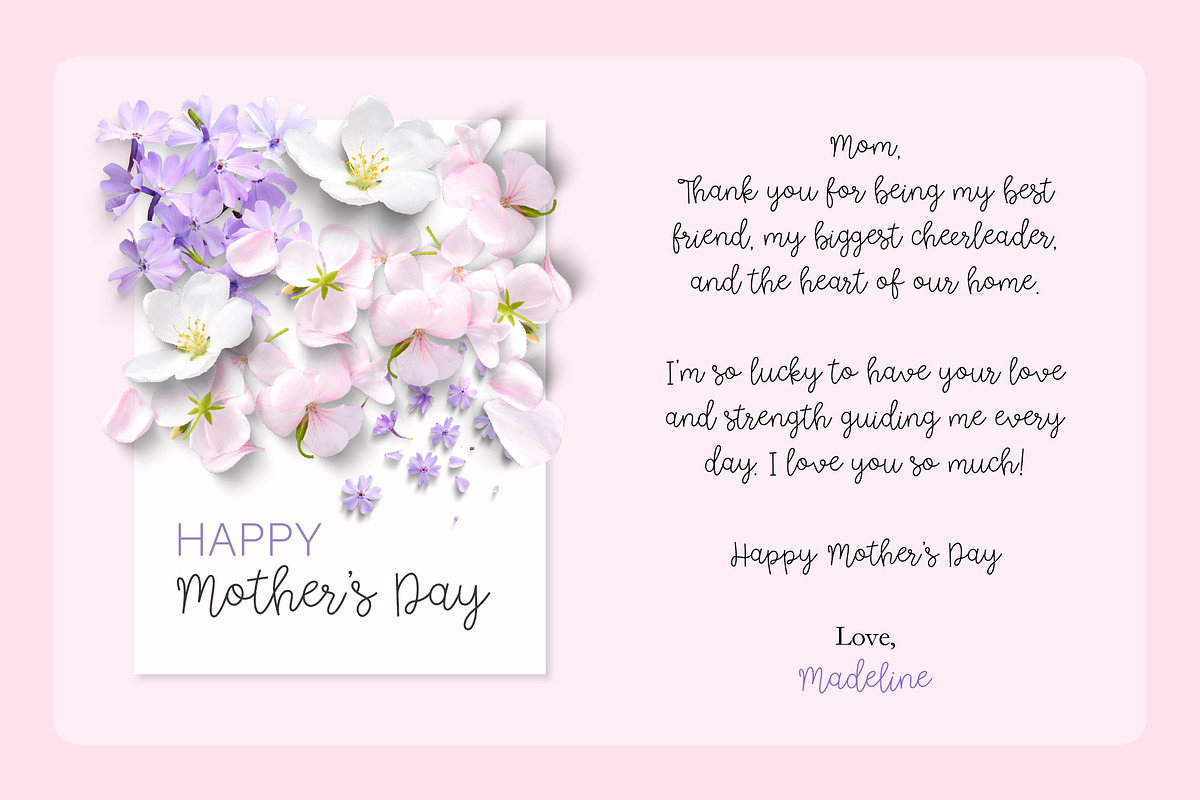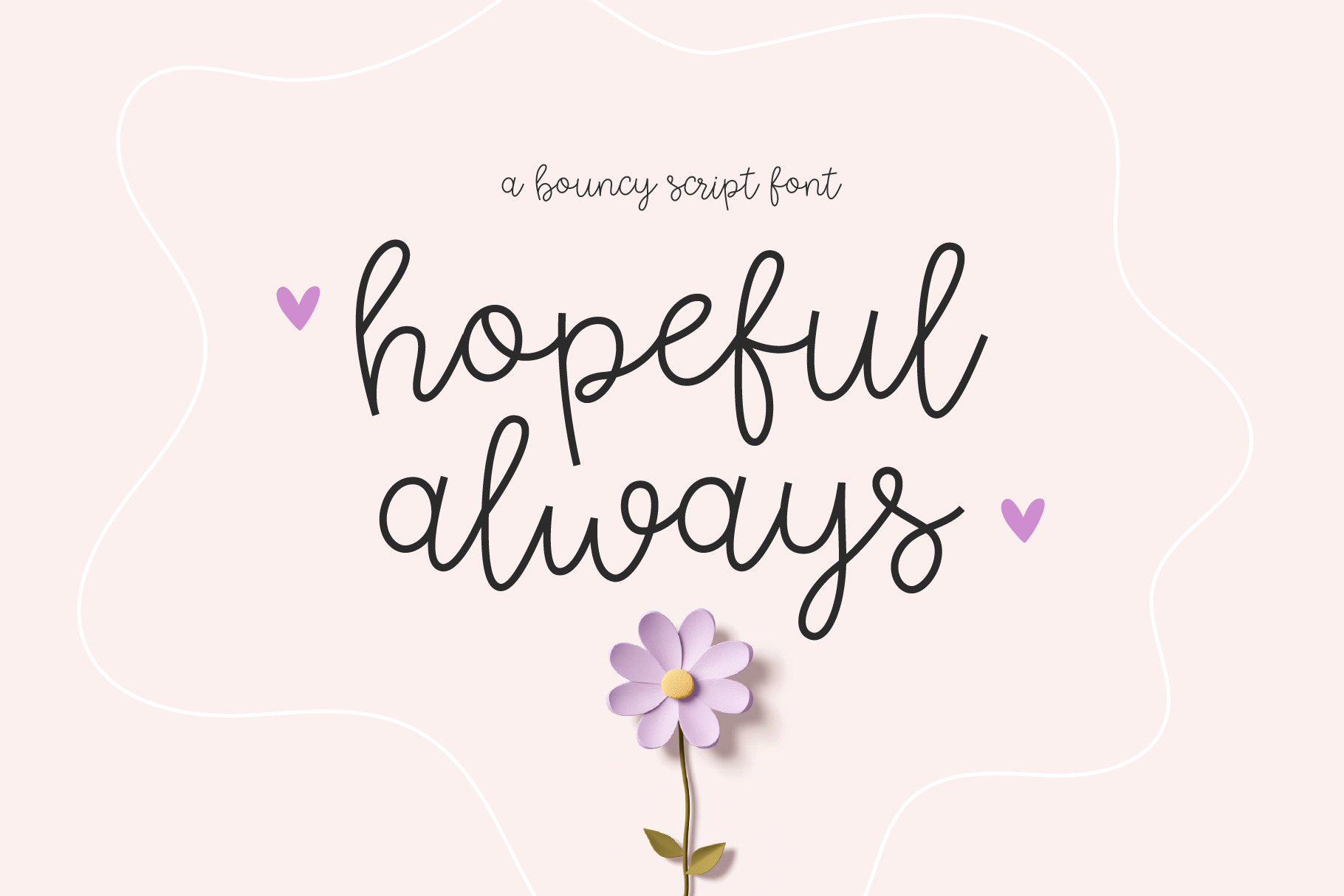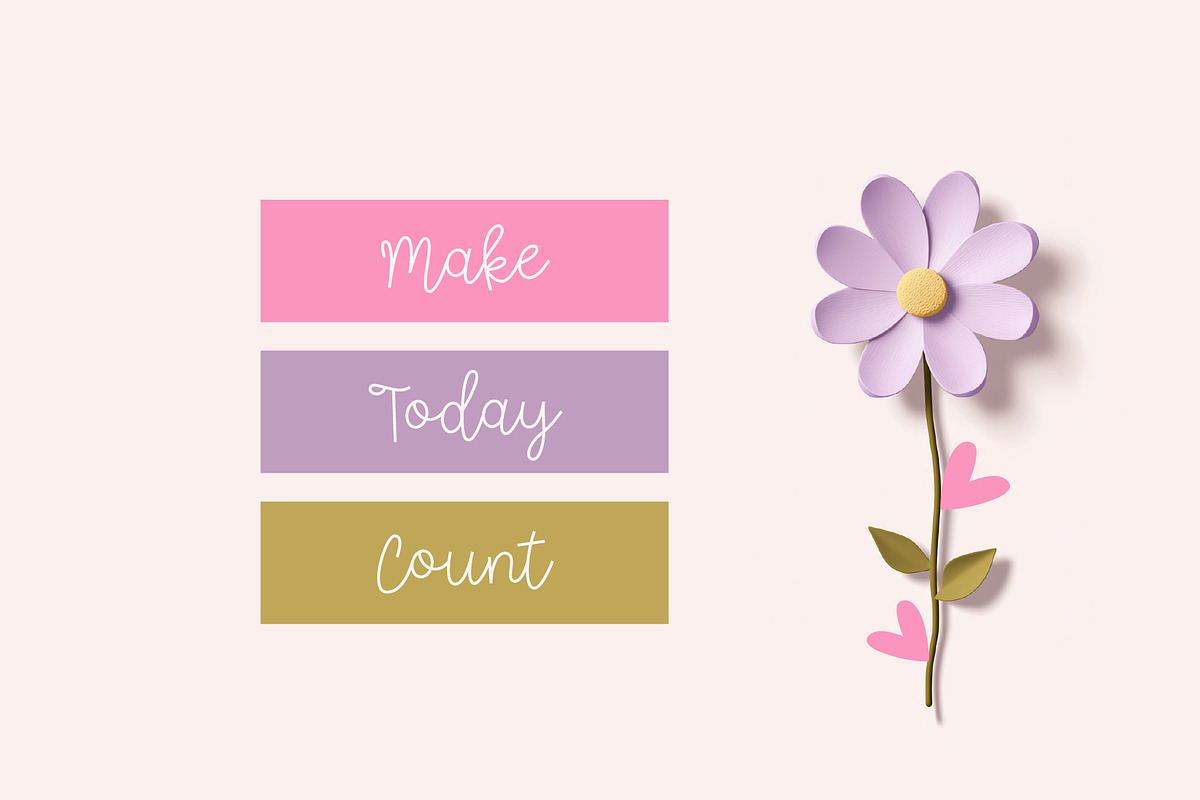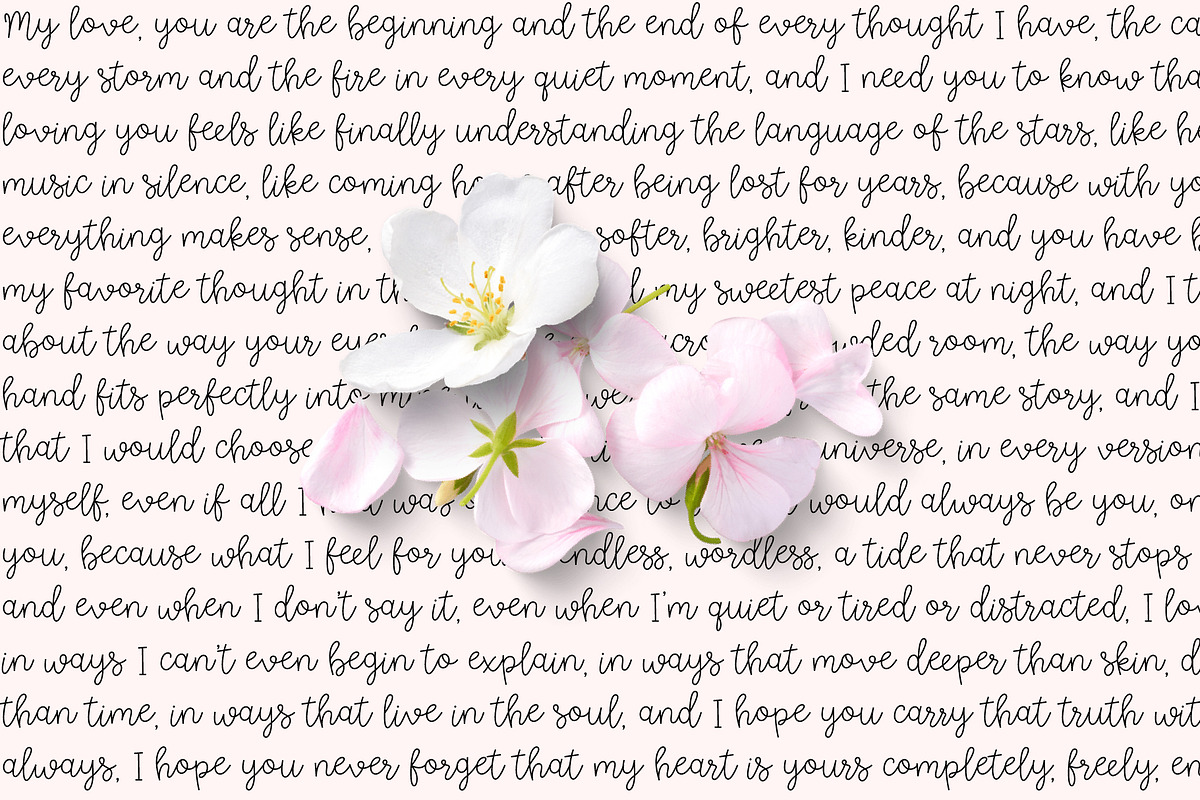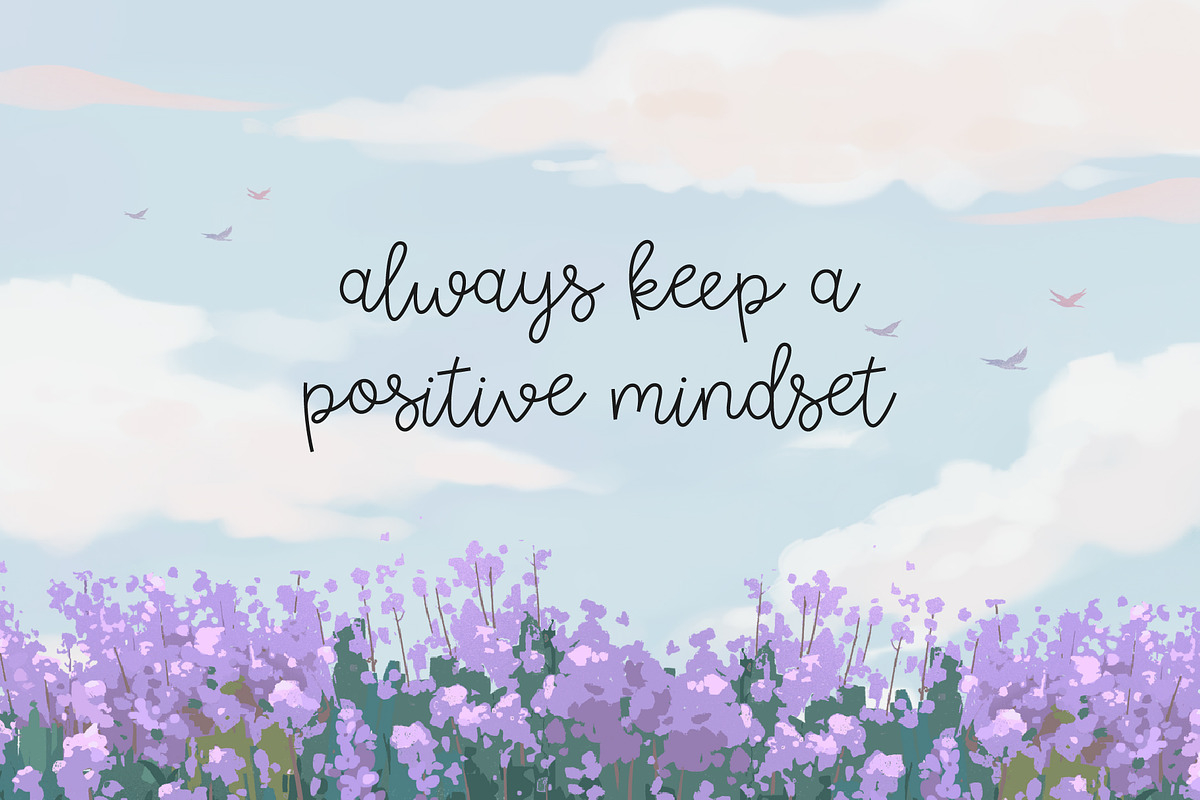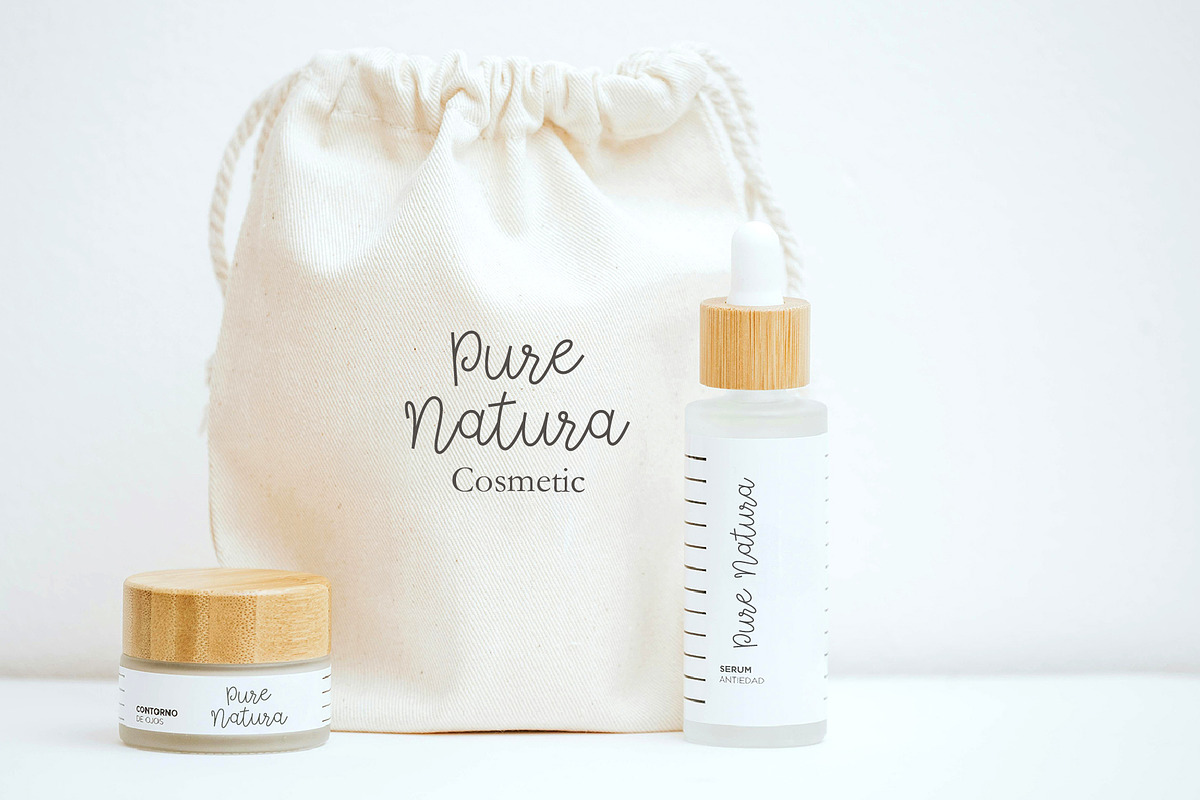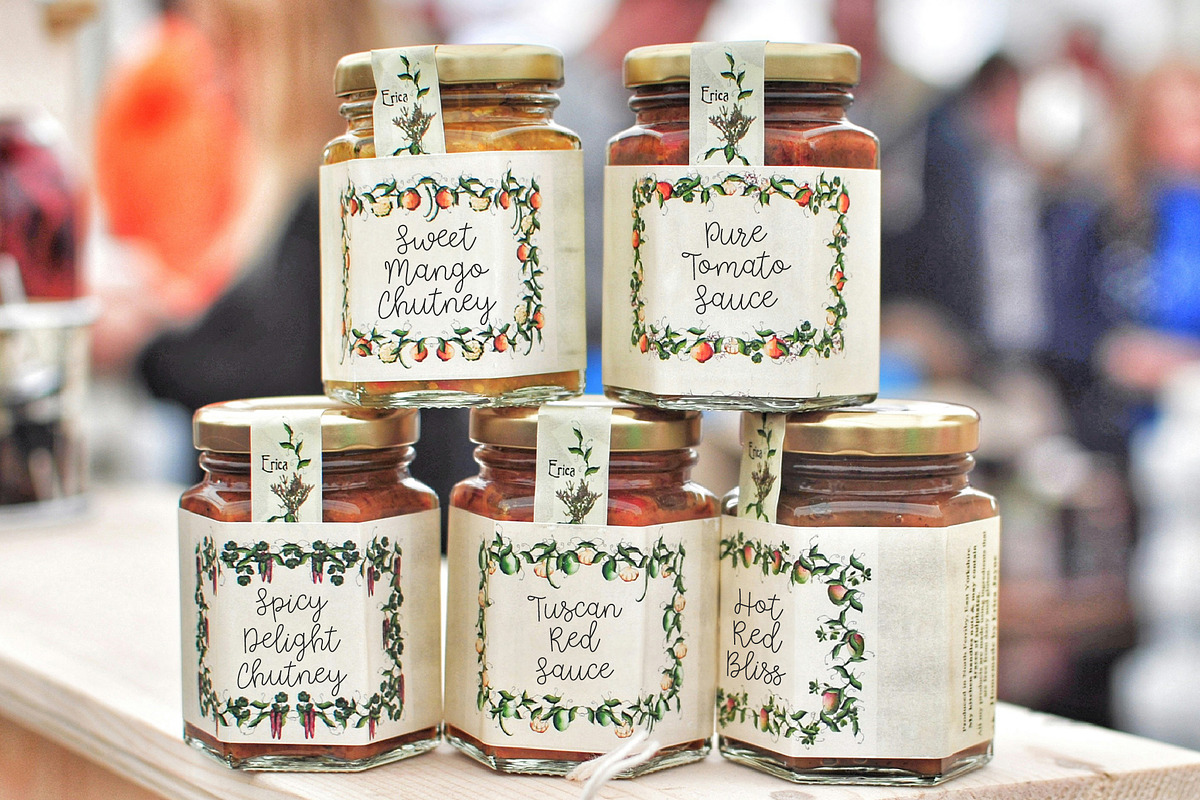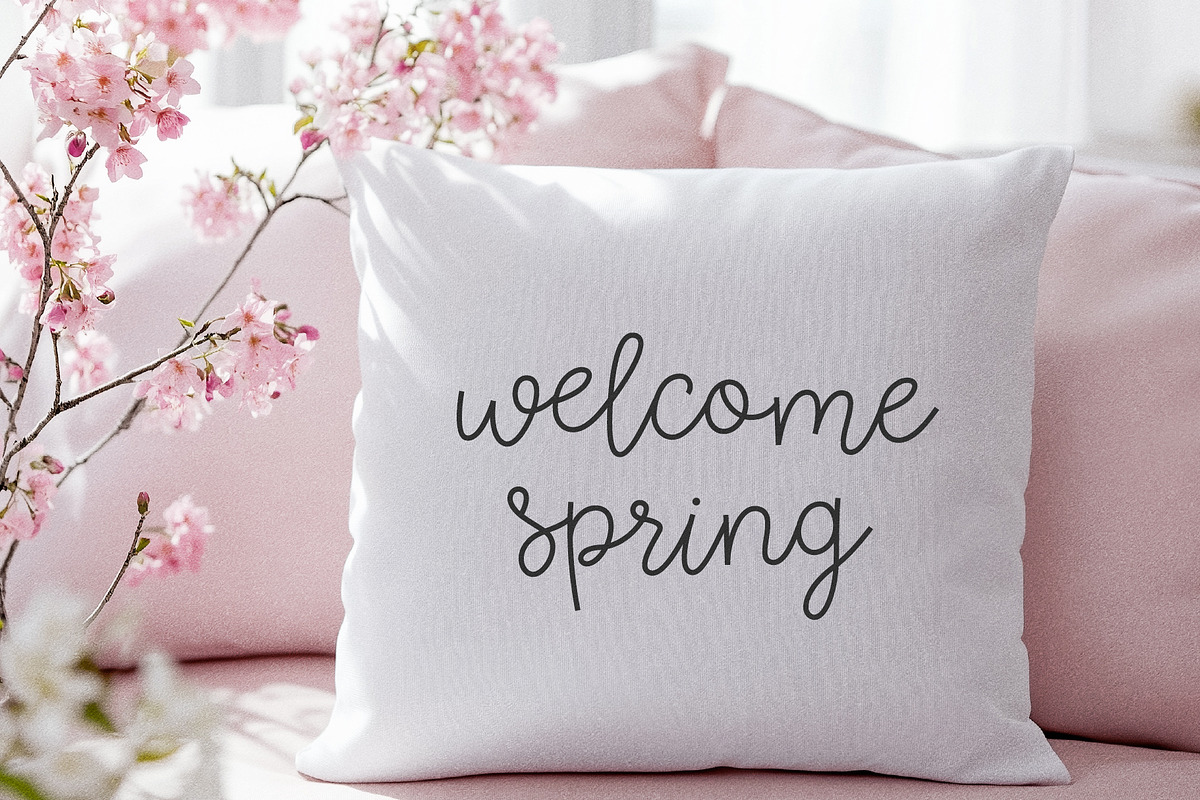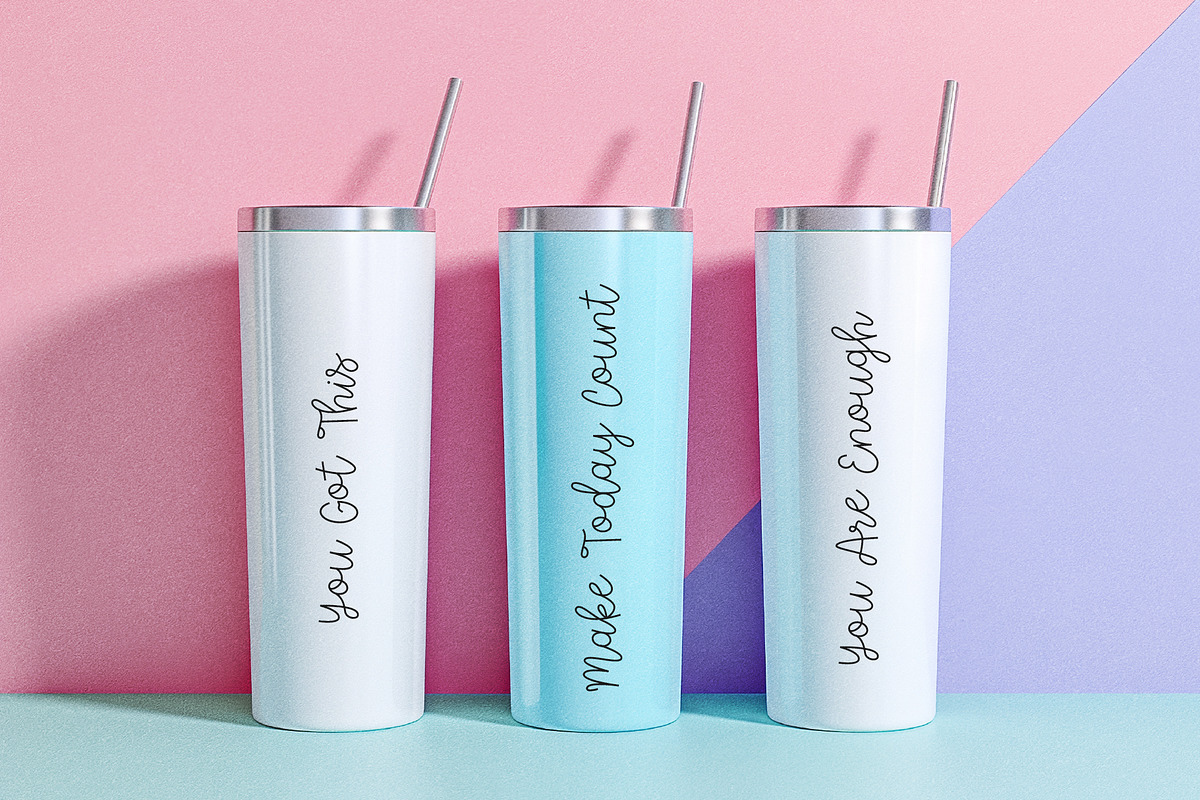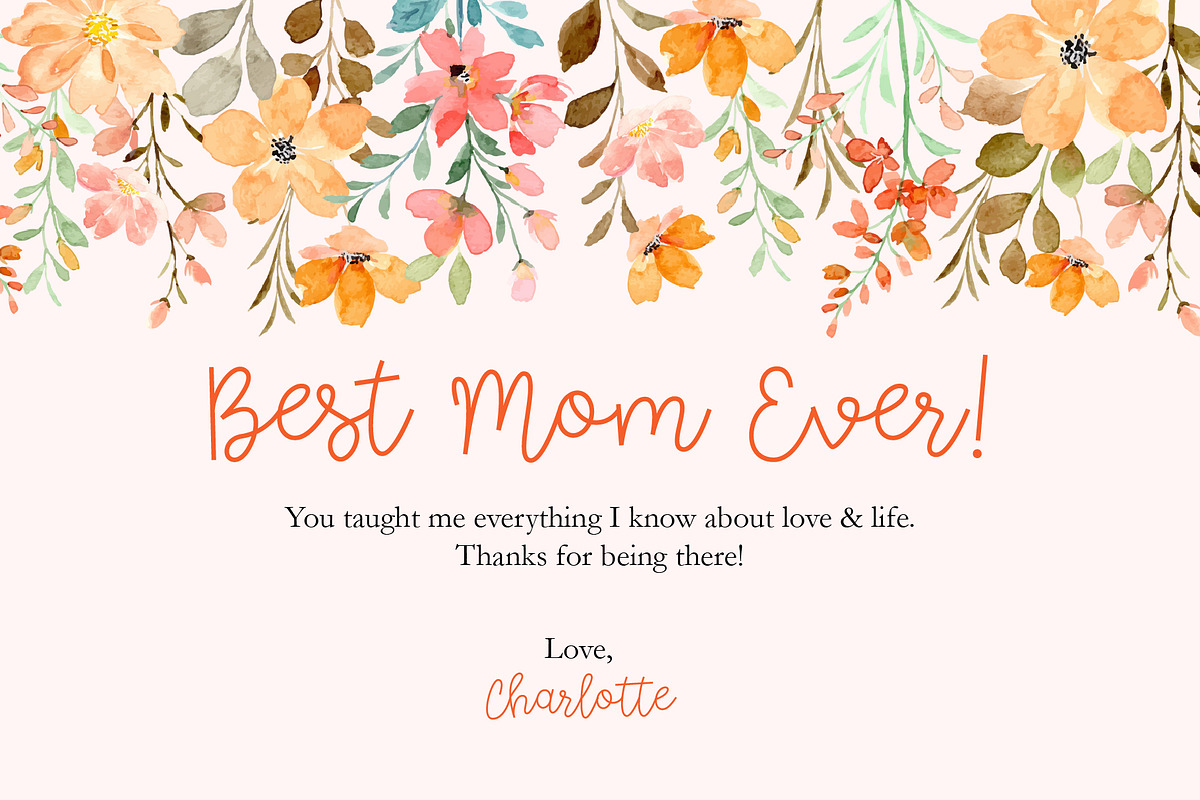
Hopeful Always Bouncy Script Font
Say hello to Hopeful Always, a lovely script font. It is great for craft projects, invitations, greeting cards, logos, branding, social media, printed goods or anything that requires a touch of elegance and personality.
FONT FEATURES
• Cute script font
• Standard characters (lowercase, uppercase, numbers, punctuation)
• Opentype Ligatures